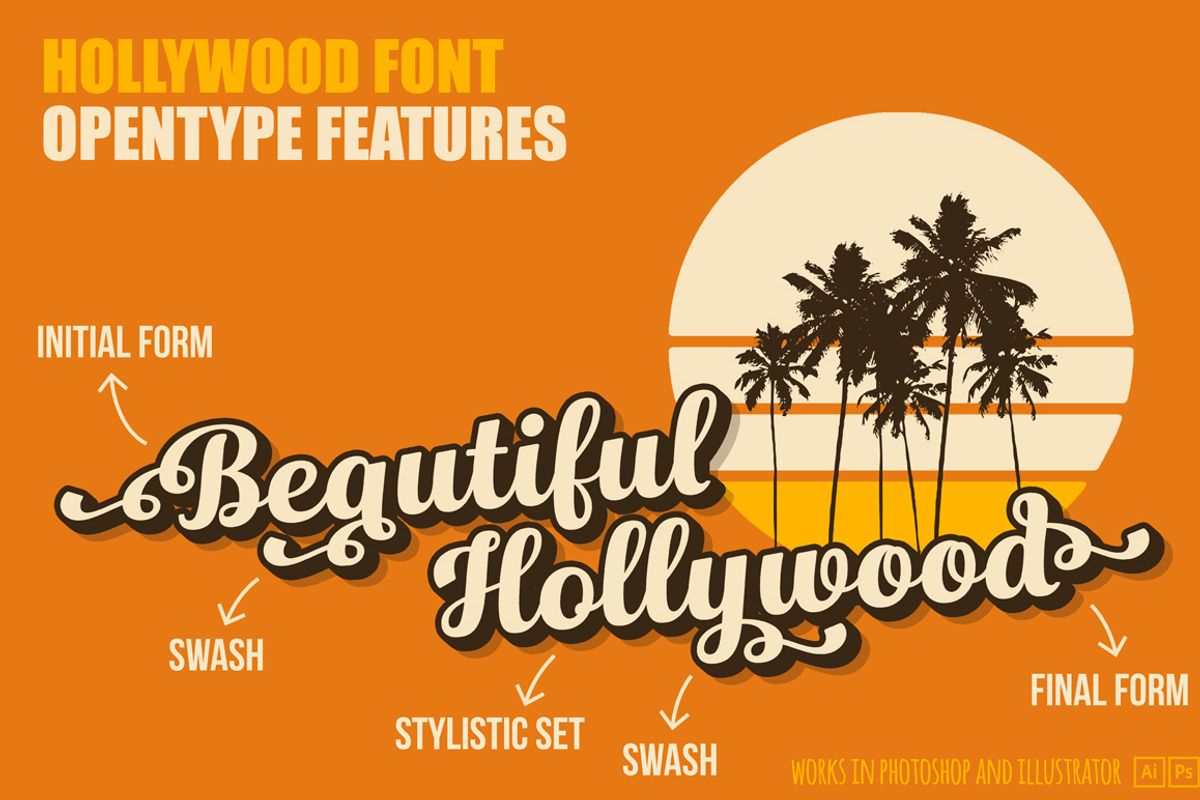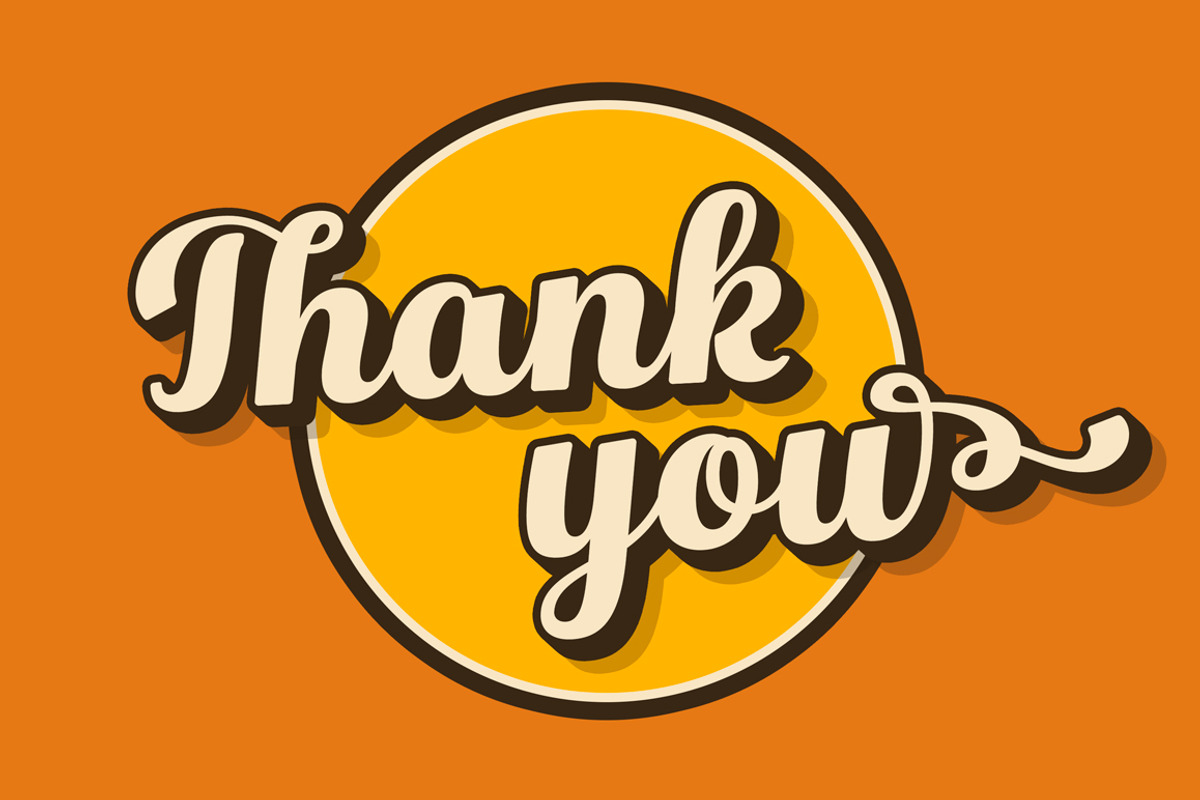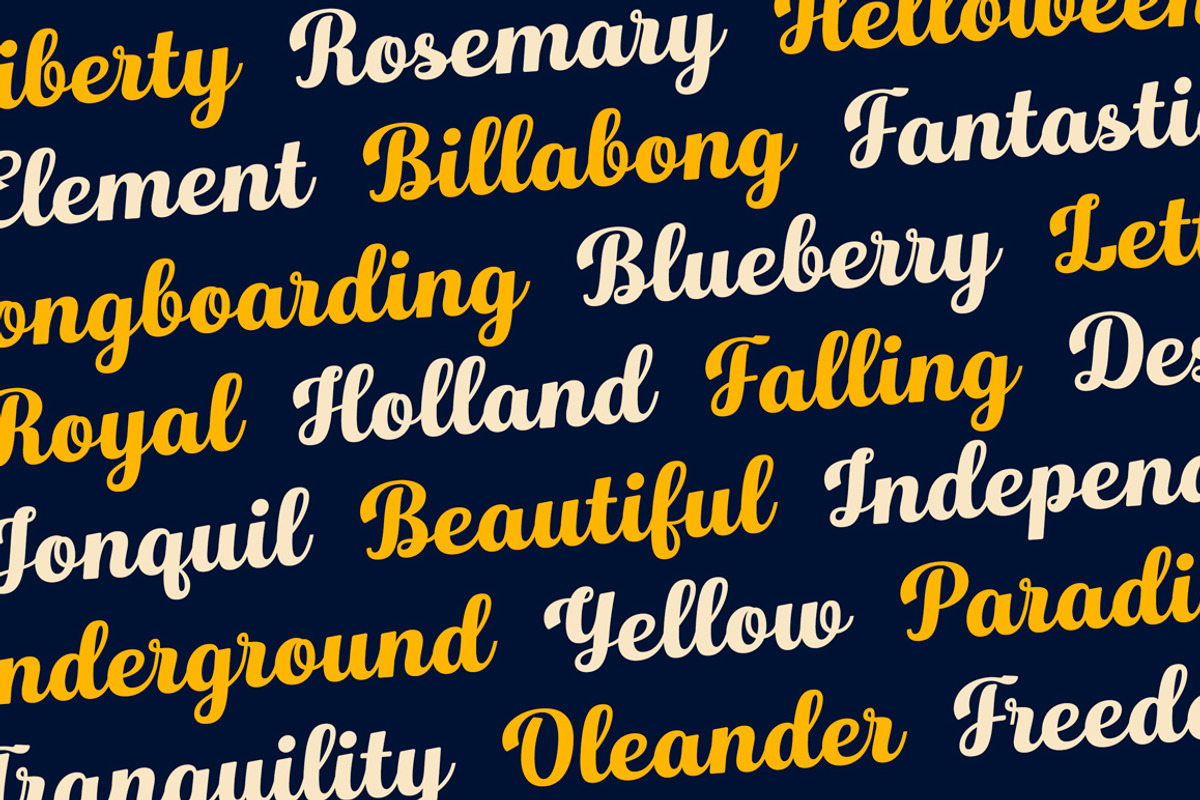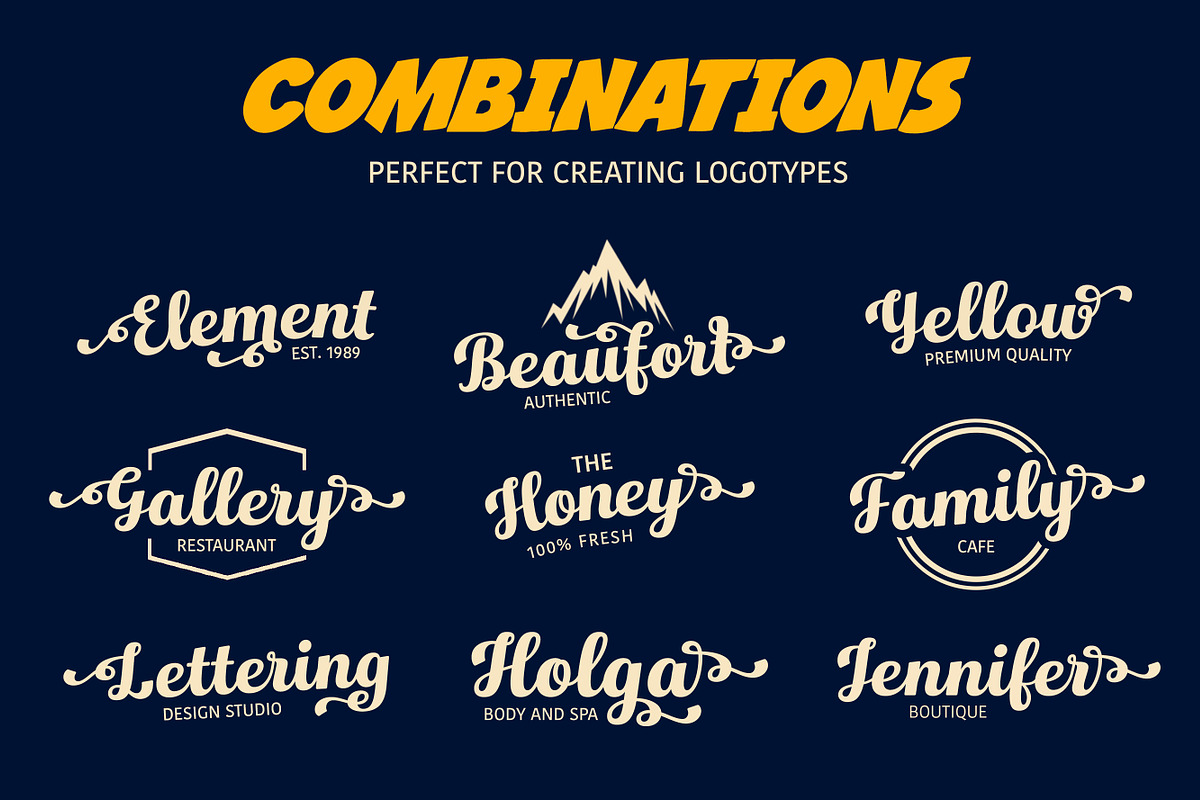
Hollywood • Vintage Font
Hollywood • Vintage Font by Annenkov Dmitriy is a font selected for branding, posters, packaging, typography.
- All alternate glyphs work automatically.
Why Hollywood • Vintage Font is worth a look
Hollywood • Vintage Font by Annenkov Dmitriy fits naturally into Branding, posters, packaging, typography.